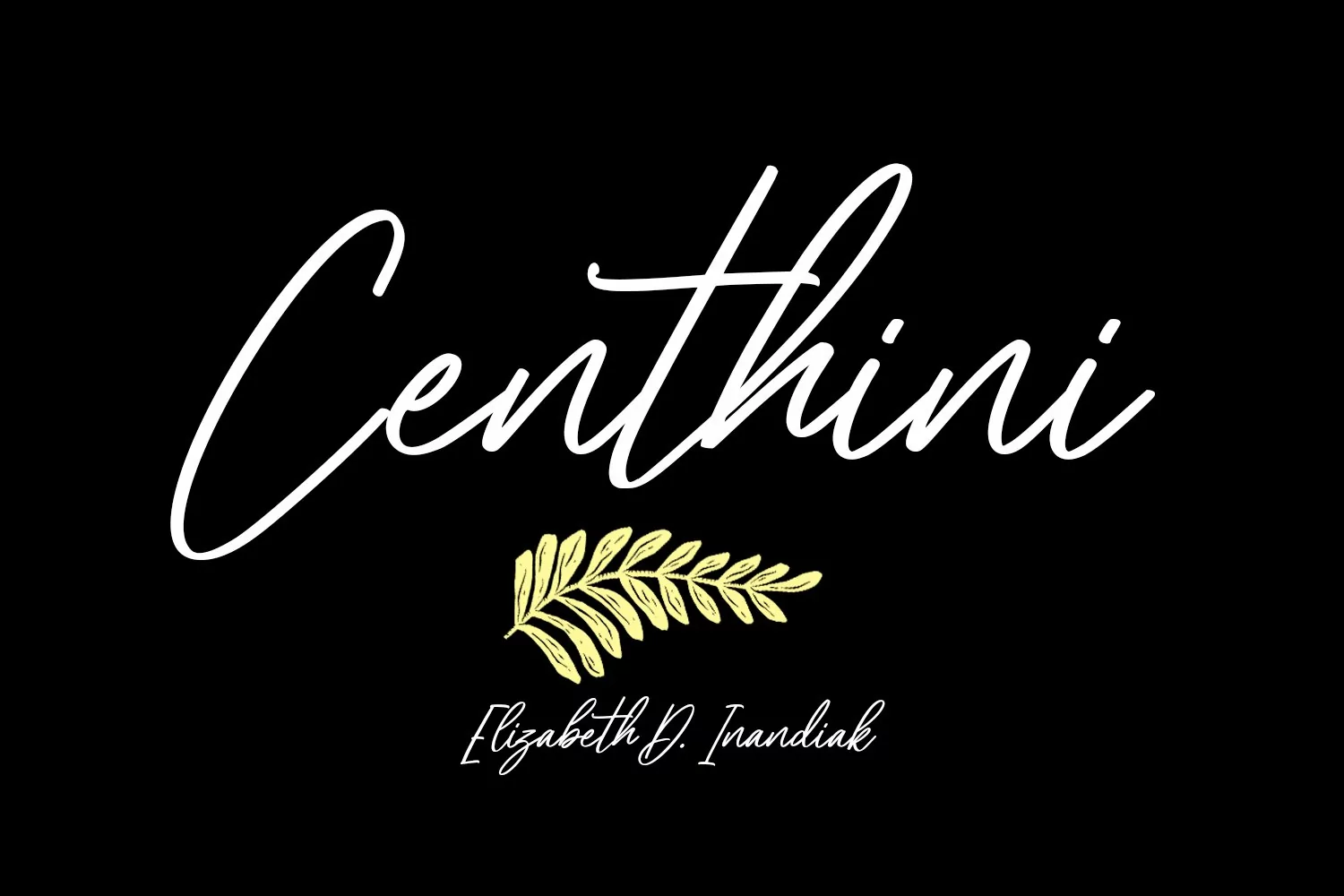
Blacksharks is a casual slanted script font. With regular felt-tip stroke and fun character with a bit of ligatures. To give you an extra creative work. Blacksharks font support multilingual more than 100+ language. This font is good for logo design, Social media, Movie Titles, Books Titles, a short text even a long text letter and good for your secondary text font with sans or serif. Make a stunning work with Blacksharks font.
Blacksharks